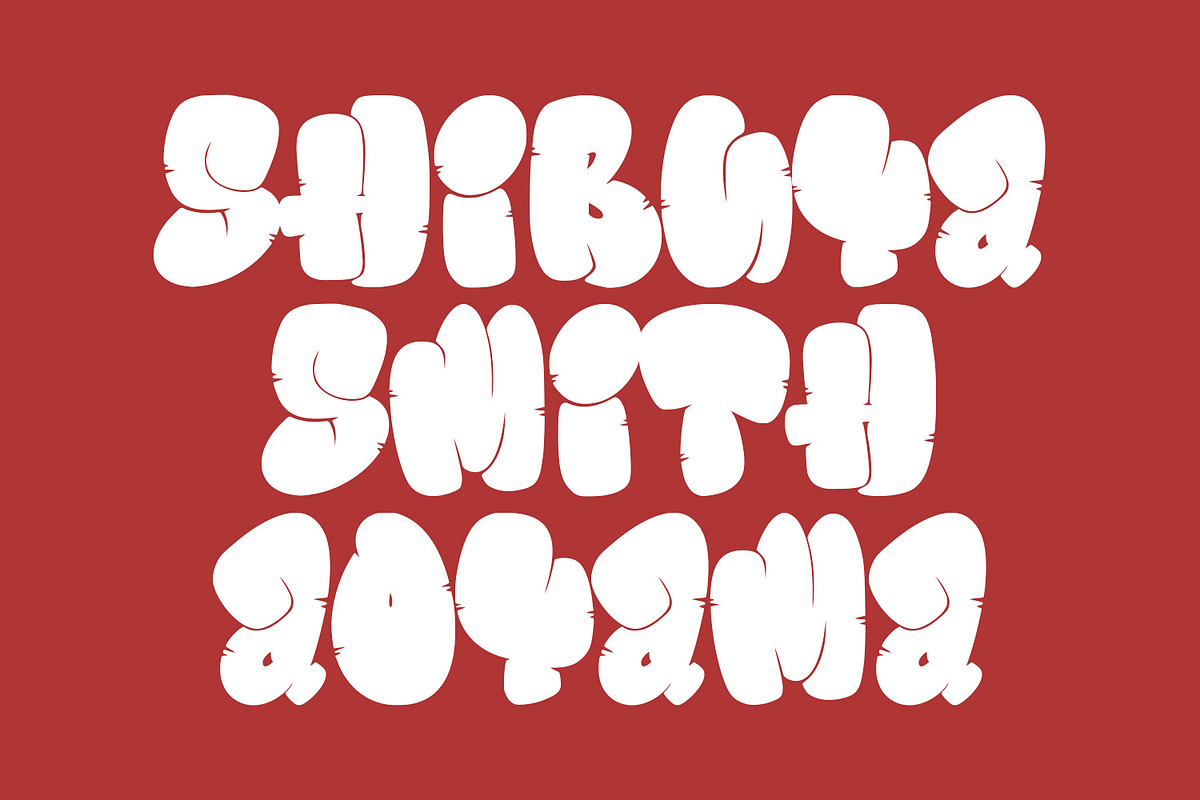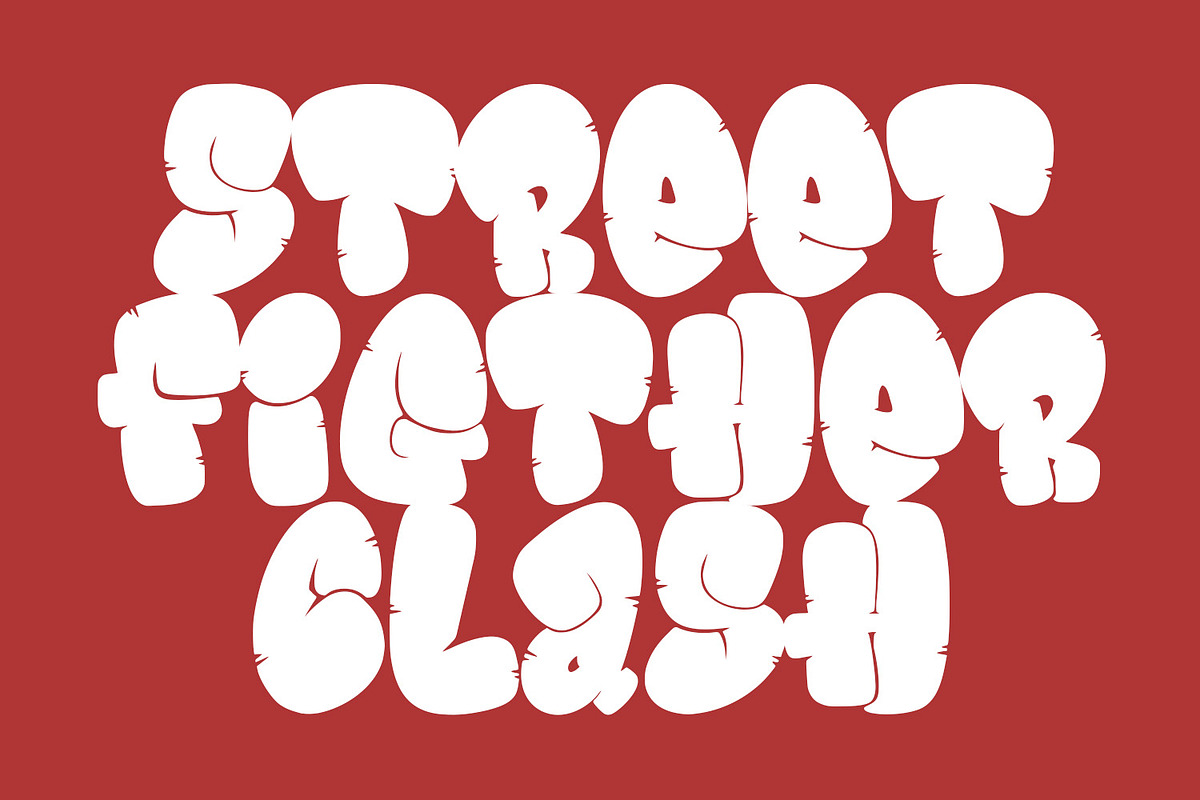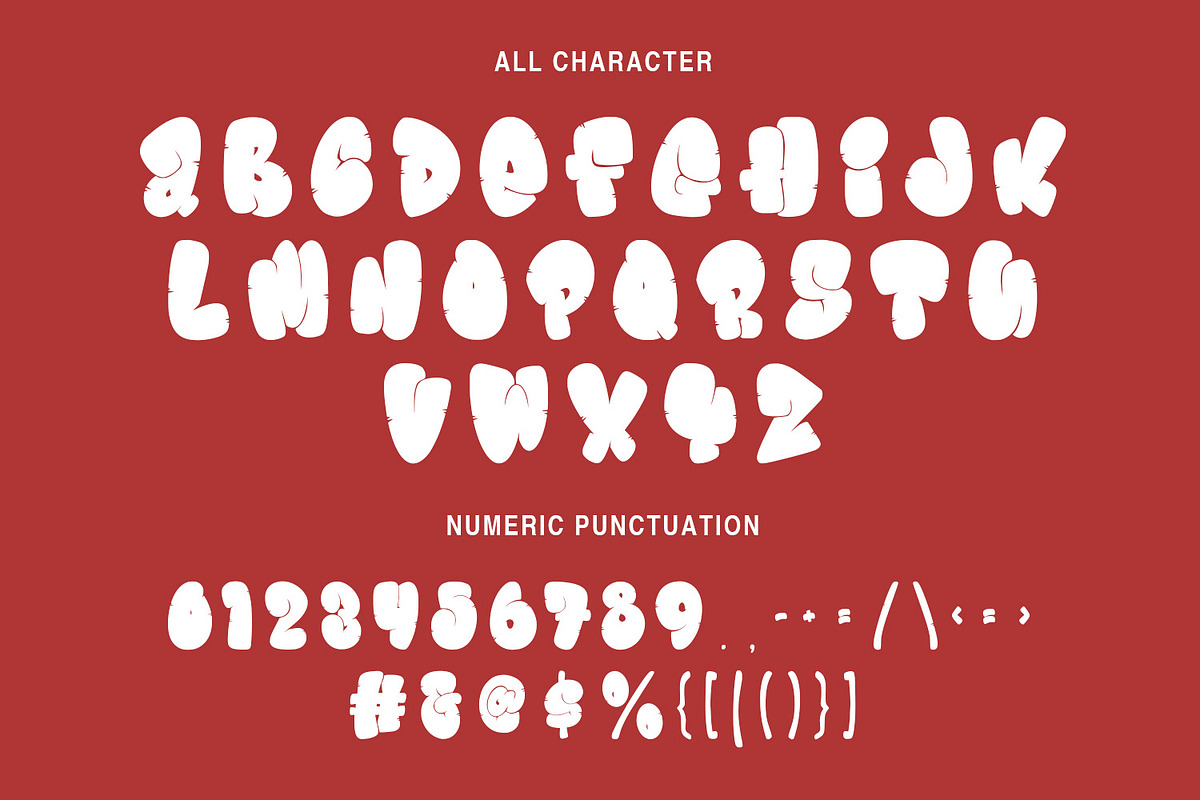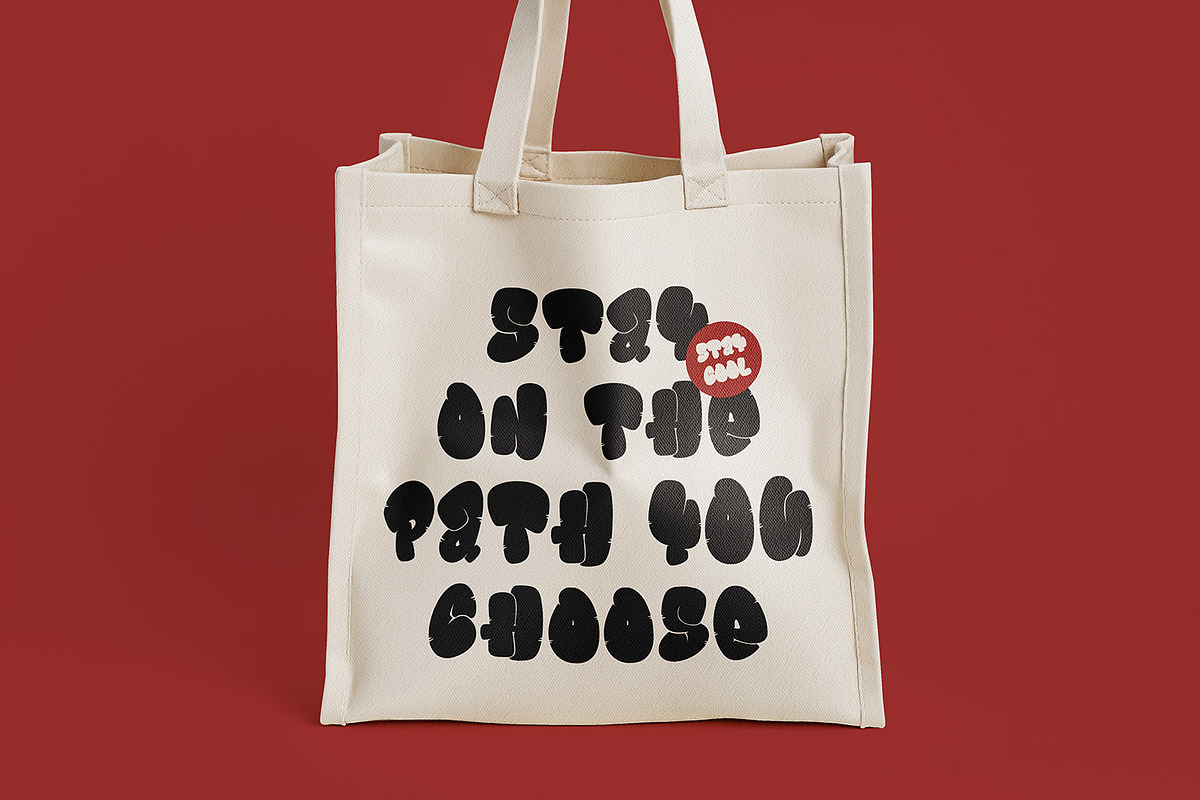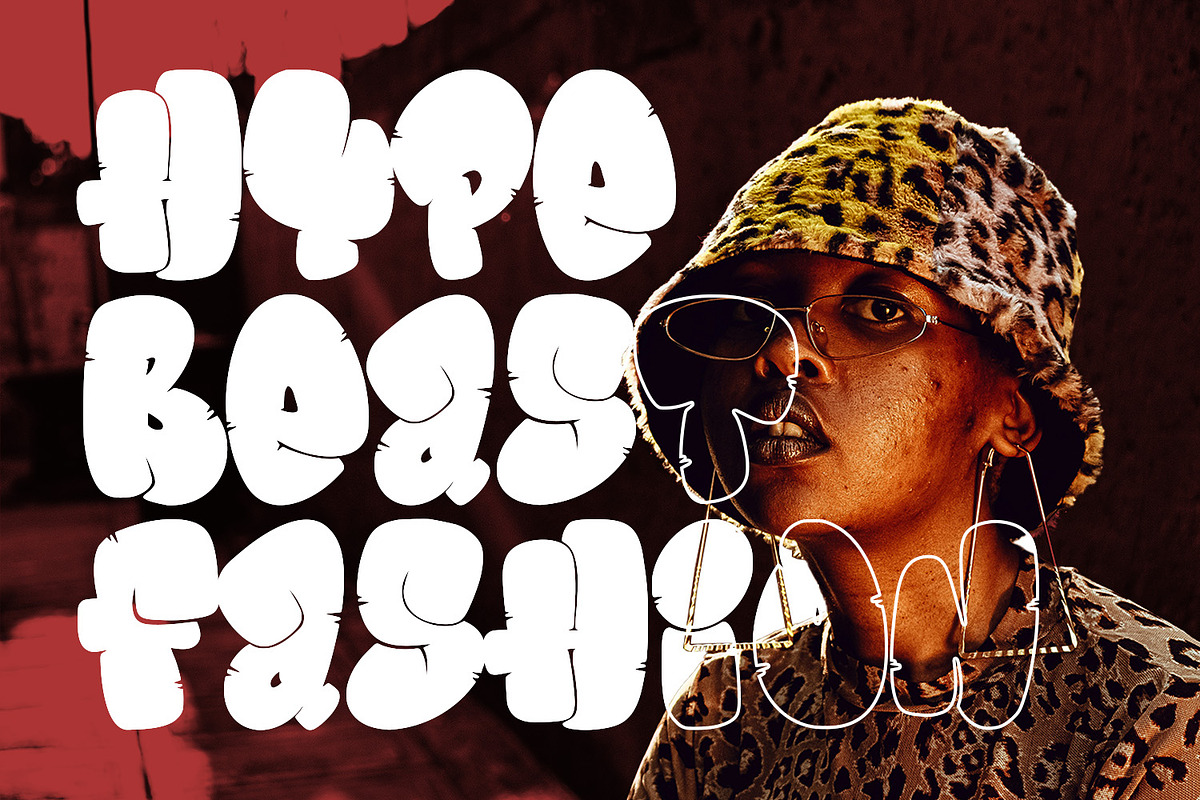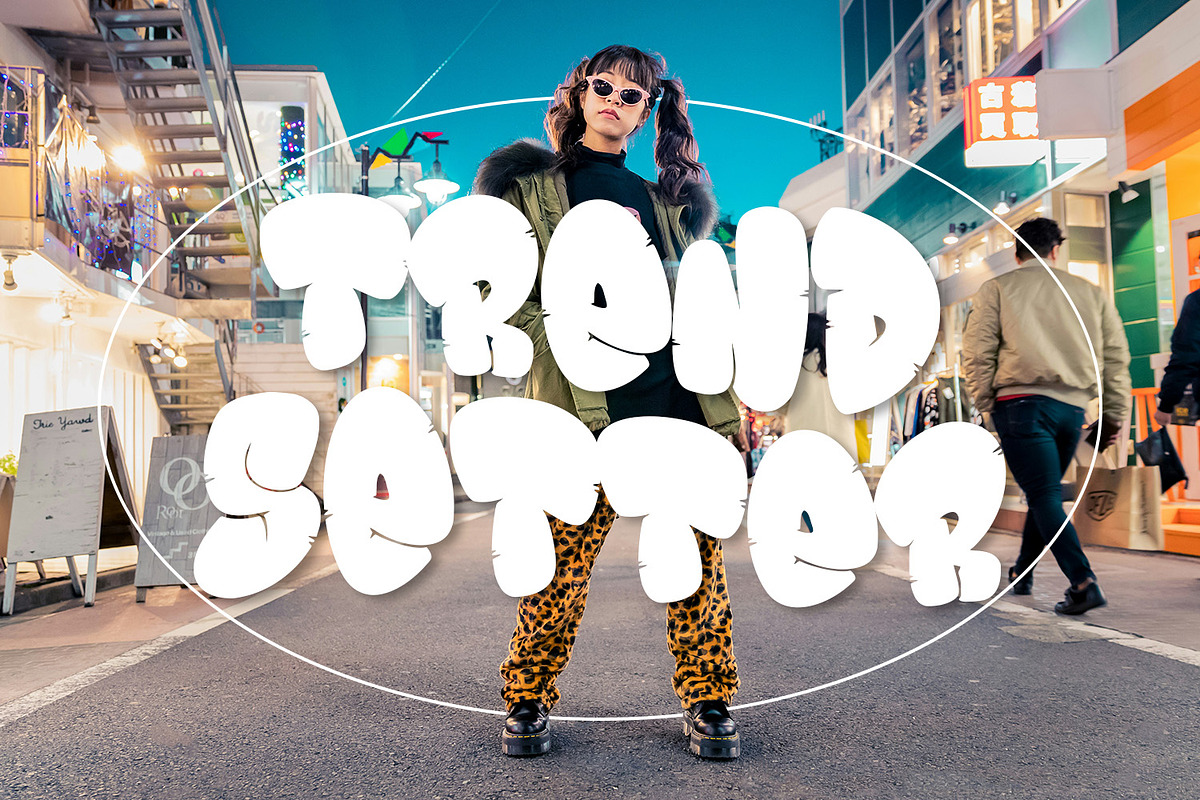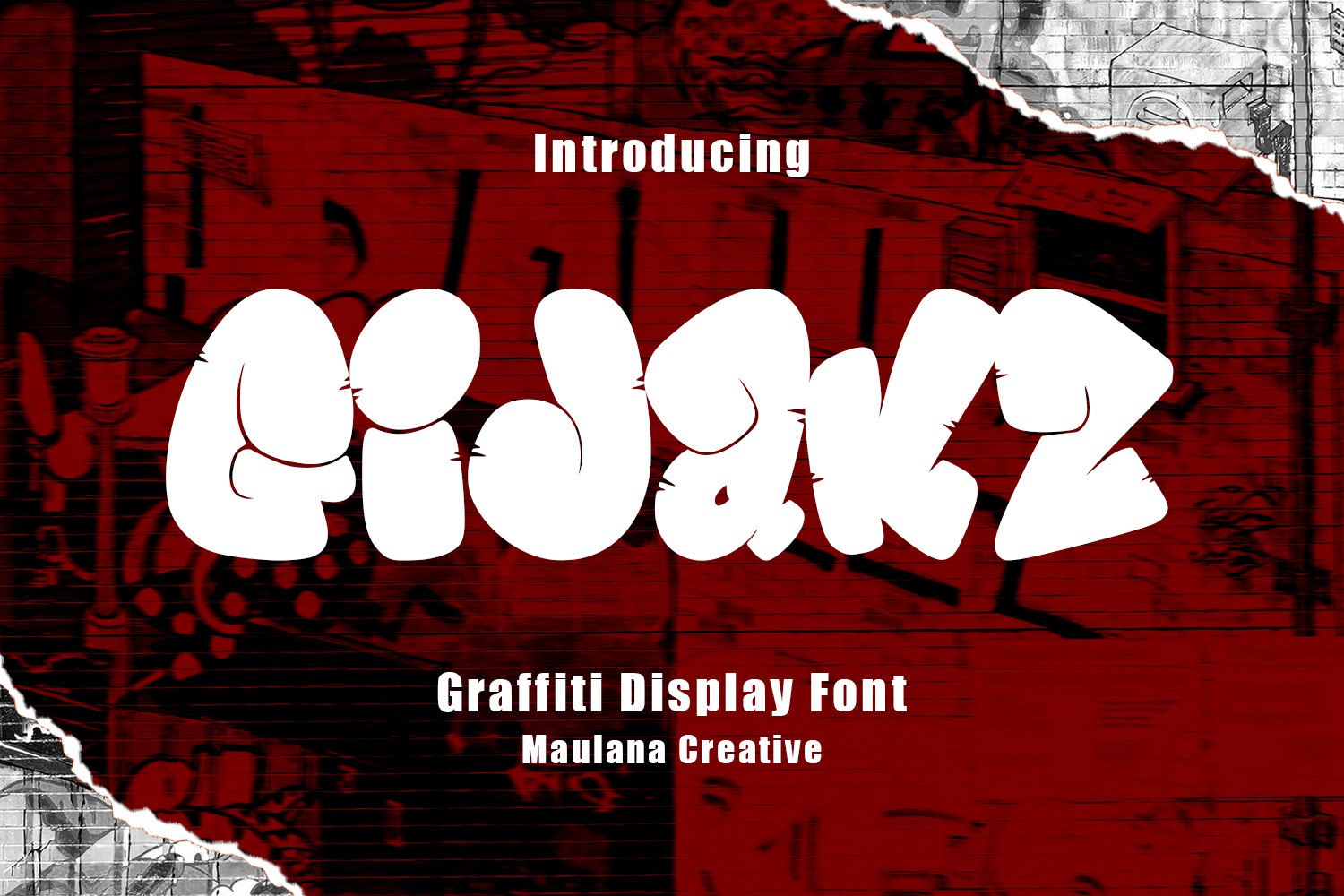
Gijaks Graffiti Display Font
Gijaks is a graffiti display font. With bold stroke and fun character. To give you an extra creative work. Gijaks font support multilingual more than 100+ language. This font is good for logo design, Social media, Movie Titles, Books Titles, a short text even a long text letter and good for your secondary text font with sans or serif. Make a stunning work with Gijaks font.